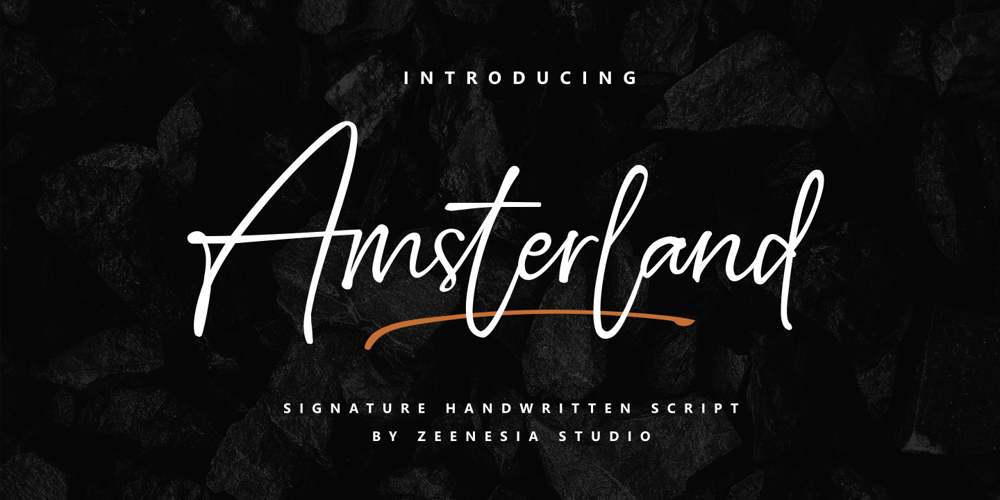
Amsterland Font Family was designed by Zeenesia Studio and published by Zeenesia Studio. Amsterland contains 1 styles and family package options. Amsterland Signature is a natural script font with handwritten signature Style.Amsterland Signature font was created with original handwritting pen. This collection of scripts is perfect for personal branding. this works well for many applications.Amsterland Signature would perfect for photography, watermark, social media posts, advertisements, logos & branding, invitation, product designs, label, stationery, wedding designs, product packaging, special events, fashion, website or anything that need handwriting taste.Amsterland Signature is equipped with many additional features that allow you to customize your text. You will get a complete set of uppercase and lowercase, multilingual, punctuation, ligatures, swash and more.